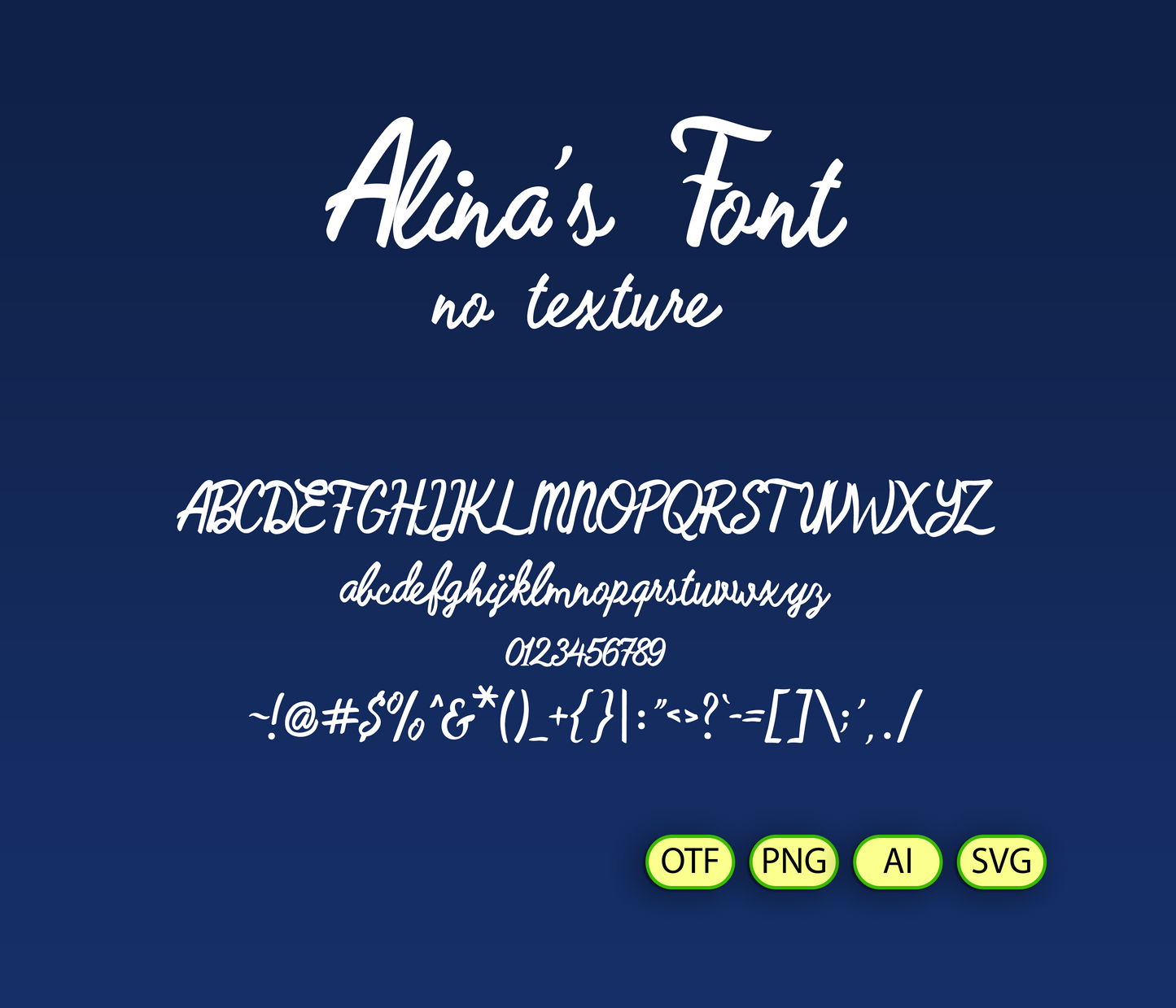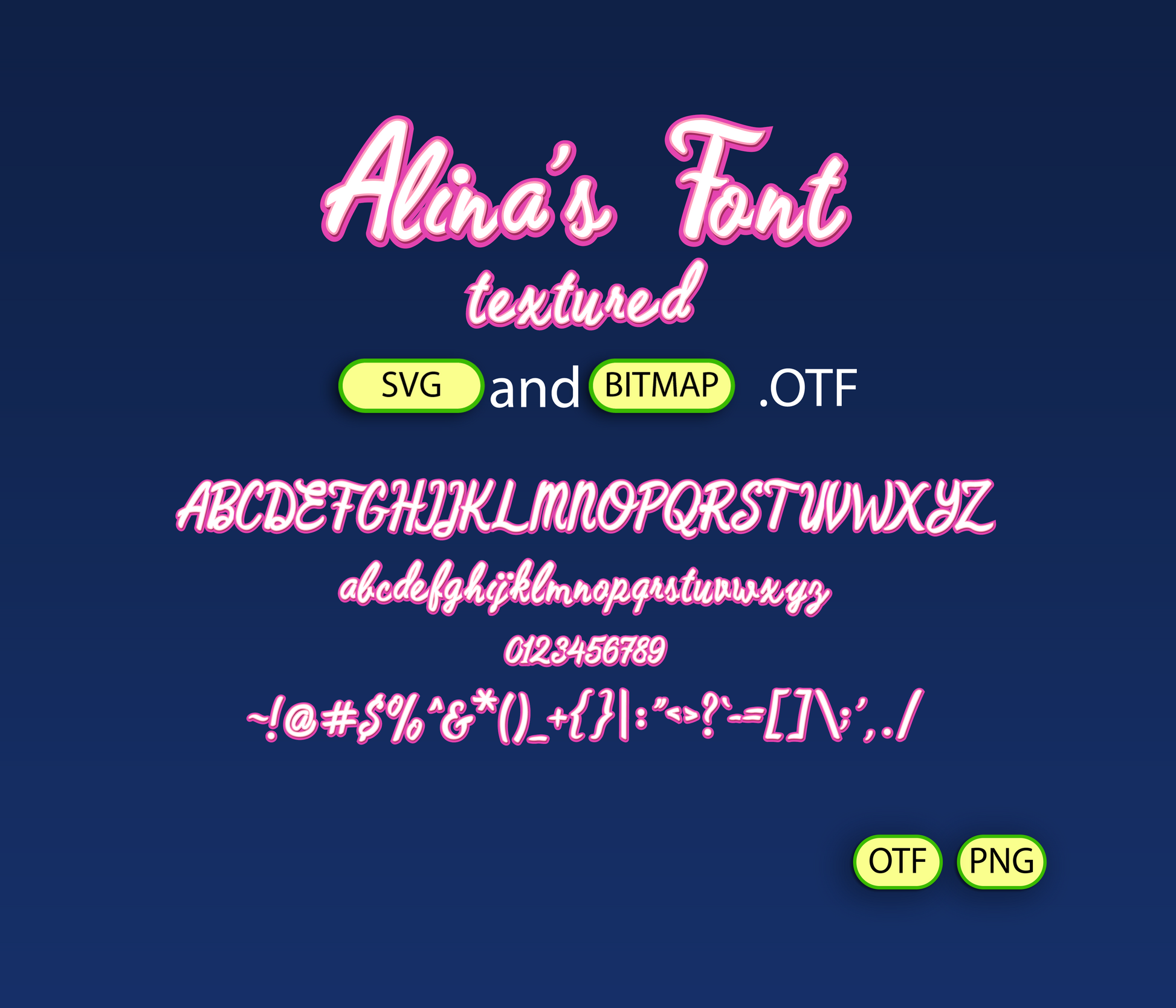
Plastic Dreamhouse Doll Font Textured
Plastic Dreamhouse Doll Font
Dive into the vibrant, fantastical world of everyone's favorite fashion icon with our specially designed font. This typeface captures the essence of the beloved doll known for her endless career possibilities and picture-perfect lifestyle. Perfect for fans, party planners, and designers, this font brings the playful, glamorous spirit of the iconic toy line to your projects.
What font is the Plastic Dreamhouse Doll font?
Envision a typeface that embodies the doll's signature style - bold, curvy, and undeniably feminine. Our font features sleek, stylized letterforms that mirror the toy's aesthetic, complete with a touch of whimsy and charm. It includes a comprehensive character set with alphabets, numbers, and special symbols, providing a versatile solution for various design needs.
What You Can Do With Plastic Dreamhouse Doll Textured Font
- Textured and Non-Textured Variants: Available in both a playful, glossy style reminiscent of the doll's look, and a clean version for versatile use
- Extensive Character Set: Offers a wide range of characters for complete design flexibility
The Plastic Dreamhouse Doll font is more than just a typeface; it's a celebration of the iconic toy that has inspired imagination and empowerment for generations.